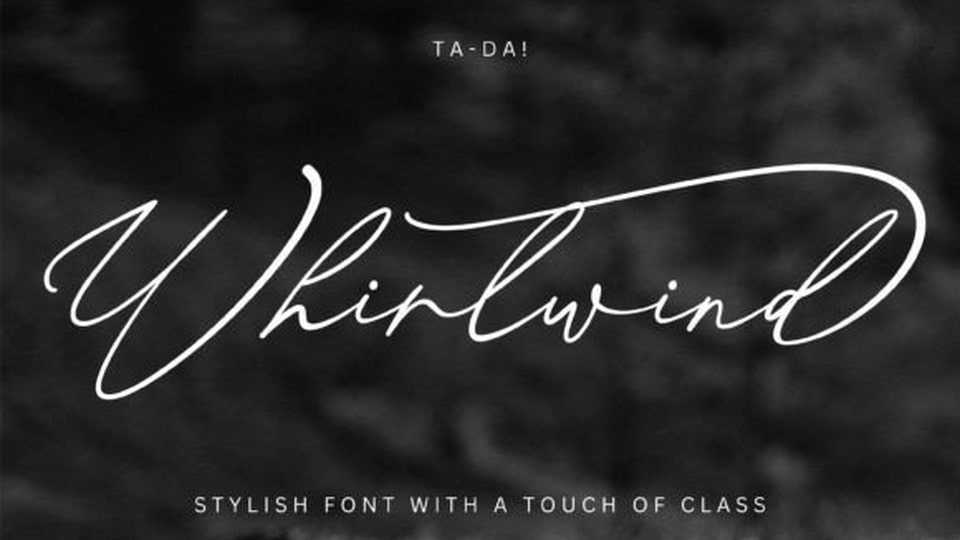
Download Whirlwind font, a fresh handwriting typeface filled with charm and friendly curves. Featuring elegant ligatures, Whirlwind draws inspiration from tidy cursive handwriting.